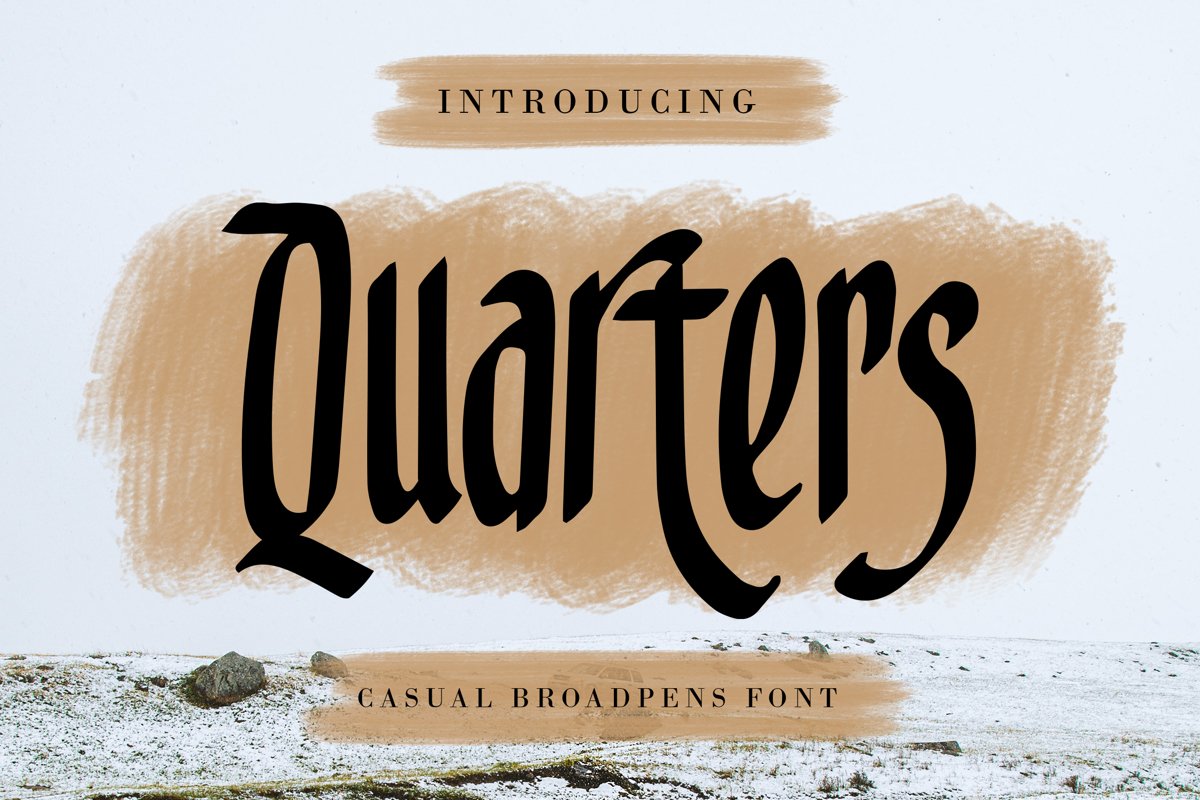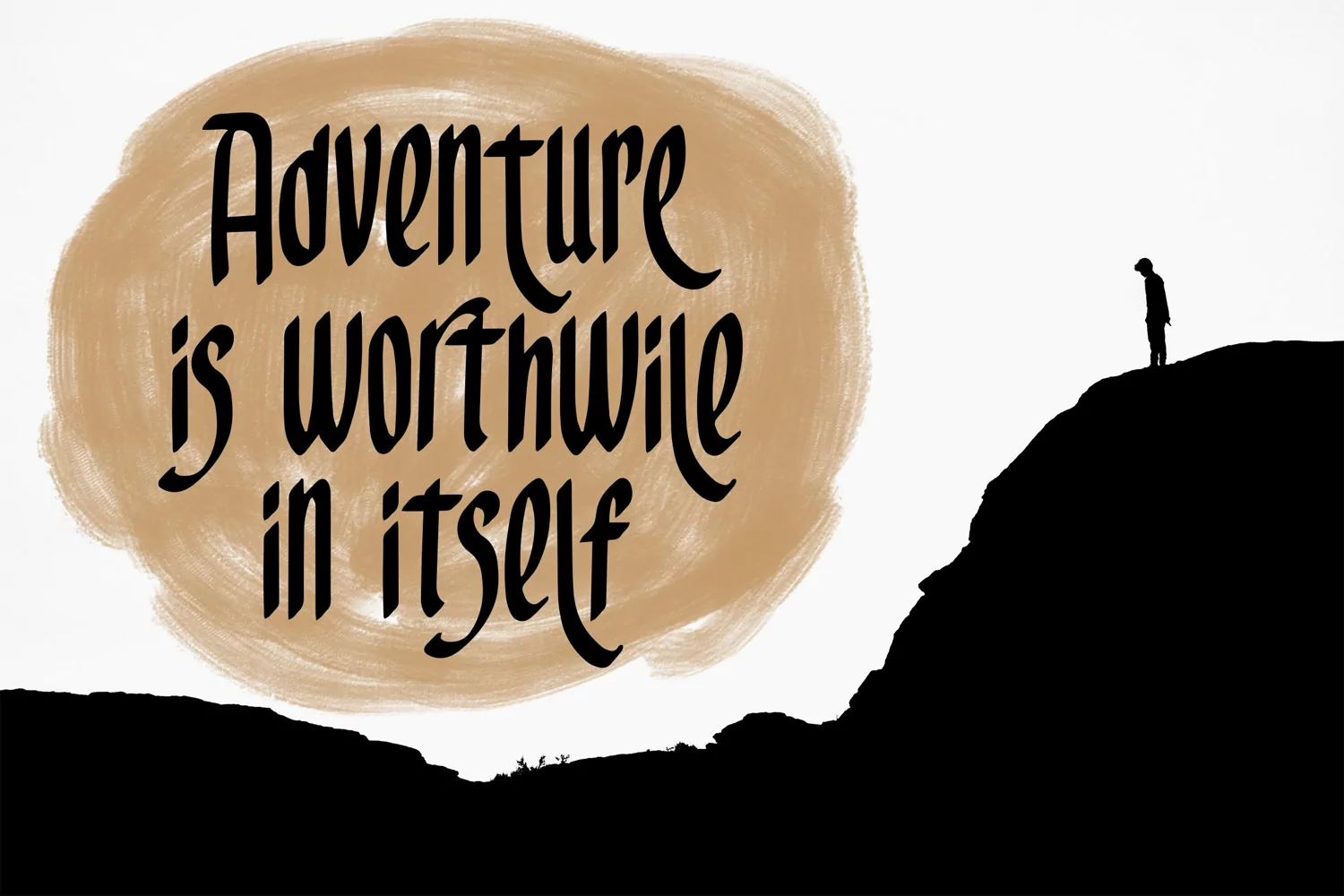
Quarters - Casual Broadpens Font that contain lowercase, uppercase, symbol, and also support multi language. There’s a lot ligatures in this font. This Font also comes with ligatures, alternates and many more. this font suitable for fashion, branding, catalog and other design what you want.